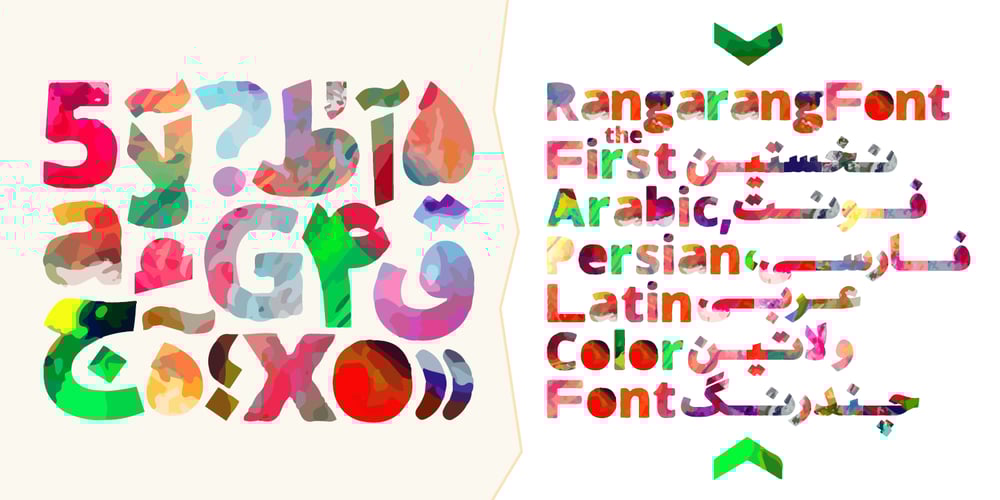
Rangarang
Rangarang font
Rangarang Font Family was designed by Shahab Siavash and published by Si47ash Fonts. Rangarang contains 1 styles and family package options. “At last, something beautiful you can truly own!”This is the first Persian Arabic & Latin COLOR font ever designed! Chromatic or Color fonts are fairly new. And Persian Arabic color fonts are extremely rare. Here, you get a font that supports both Arabic and Latin!Rangarang [means colorful] font comes in with a wonderful color set and variety in forms. Every single glyph has a unique palette of colors. If you look closely at the glyphs, you’ll see complex paths and connections in every single one of them. Each glyph could be seen as a typographic artwork!Rangarang font is great for entertainment design, posters, business cards, website titles, magazine illustrations, logotypes, book covers, banners, billboards,… There are countless options! Notes:- SVG fonts contain vector letters with gradients and transparency.- These fonts will show up in apps that are compatible with color fonts, like Adobe Photoshop CC 2017.0.1 and above, Illustrator CC 2018. Learn more about color fonts and their support in third-party apps on: www.colorfonts.wtf- Don’t worry about what you see here in the preview section in your browser. You may see the glyphs in black here, but this font is working EXACTLY how you can see it in the font pictures I put here. So if you use it in apps that support colored fonts, you can be sure that after installing the font on the system you will be able to use it like every other font. Shahab Siavash, the designer has done more than 30 fonts and got featured on Behance, Microsoft, McGill University research website, Hackernoon, Fontself, FontsInUse,… Astaneh and Hezareh text and headline fonts, Yaddasht and Yadgar handwriting fonts,… already got professional typographers, lay-out and book designers’ attention as well as some of the most recognizable publications in Persian Arabic communities.